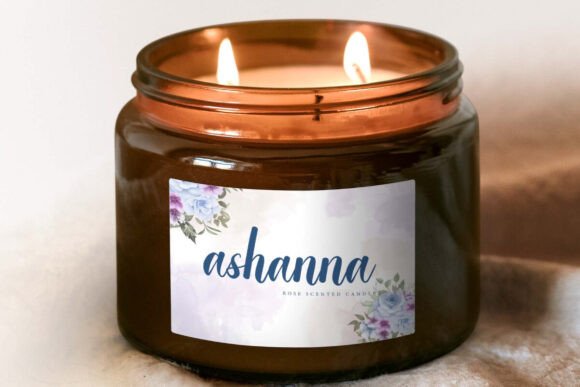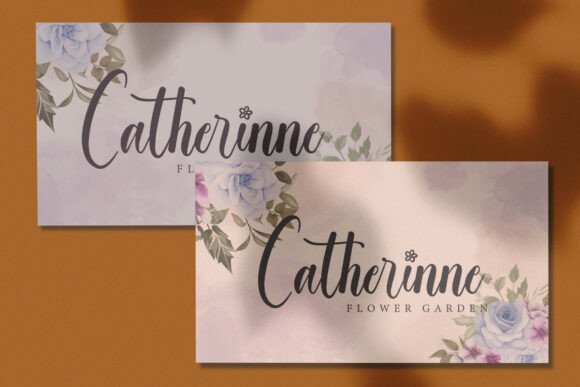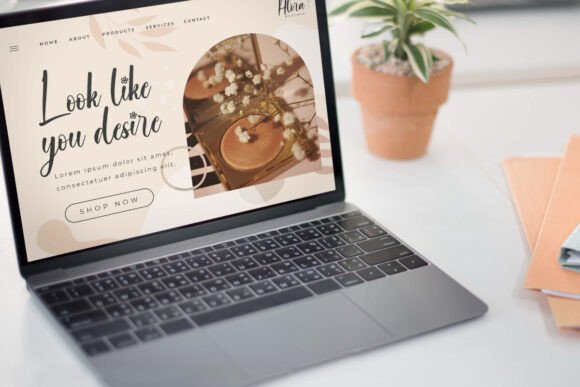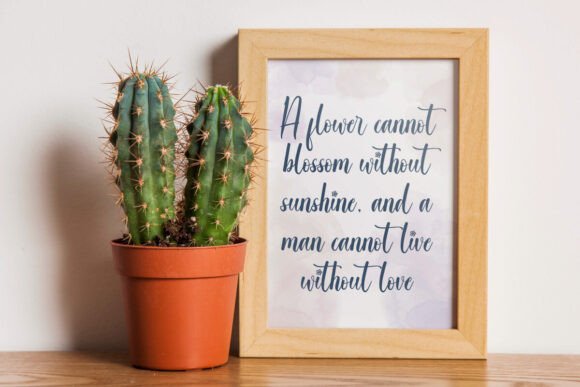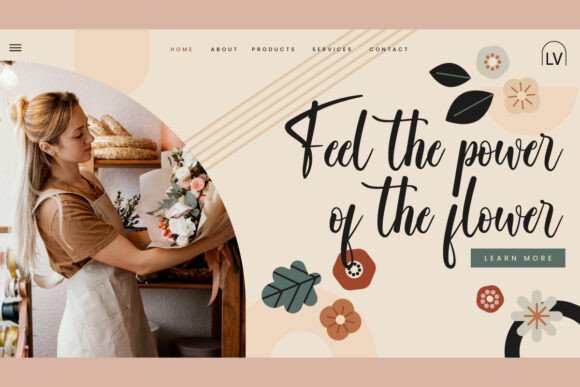
Unleash the Beauty of Evening Flower Font
As a designer, there’s nothing quite like that moment when a new font sparks creativity and transports you to a world of endless possibilities. For me, it’s often a late evening, surrounded by sketches, design books, and a steaming cup of coffee. The soft glow of the screen illuminates the room, and suddenly, the perfect font appears – one that captures the essence of elegance and sophistication. This is exactly what Evening Flower Font brings to the table: a beautiful script typeface that’s as charming as it is versatile.
With Evening Flower Font, designers can add a touch of whimsy and romance to their designs, whether it’s a brochure, a billboard, or a wedding invitation. This font’s flowing lines and delicate petals are sure to captivate audiences and leave a lasting impression. Whether you’re a seasoned pro or just starting out, Evening Flower Font is a valuable addition to any designer’s toolkit, offering endless opportunities for creativity and self-expression.
Evening Flower Font Key Features
- Font Family: Evening Flower is a unique, hand-drawn font designed for creative projects.
- Unique Characteristics: Evening Flower features intricate, hand-painted details and a soft, watercolor-inspired aesthetic, perfect for creating a whimsical and romantic atmosphere.
Designer Review: Evening Flower Font
As a designer, I was excited to dive into the Evening Flower Font and see what it had to offer. ✨ One thing that immediately caught my eye was the beautiful, hand-drawn aesthetic of the font. It’s clear that the designer has a passion for botanical illustrations, and it shows in the intricate details and delicate lines of the letters.
The Evening Flower Font has a soft, romantic feel to it, making it perfect for projects that need a touch of whimsy and elegance. I can see it working beautifully for wedding invitations, garden-inspired designs, or even a children’s book.
- ⚠️ Limited font sizes: While the font is beautiful at larger sizes, it starts to lose its charm at smaller font sizes. This may limit its usability in certain contexts.
- ⚠️ Lack of bold weight: The font only comes in a regular weight, which may not provide enough contrast for certain design elements.
- ⚠️ Limited character set: The font only includes a limited set of characters, which may make it difficult to use in languages that require a broader character set.
Overall, I think the Evening Flower Font is a beautiful addition to any designer’s toolkit. While it may have some limitations, its unique aesthetic and delicate lines make it perfect for projects that need a touch of elegance and whimsy. With a bit of creativity and careful planning, I can see this font becoming a staple in many designers’ arsenals.
The Evening Flower Font is ideal for:
- Event branding and marketing materials.
- Personalized gifts and decorations.